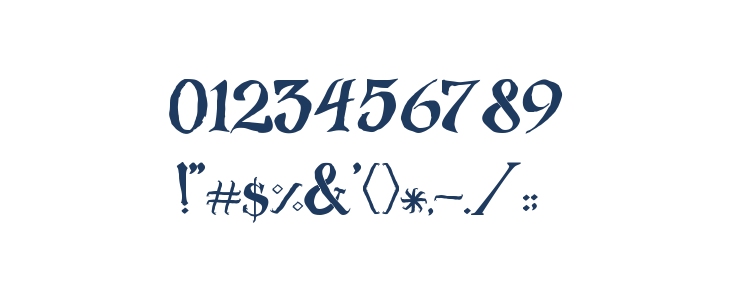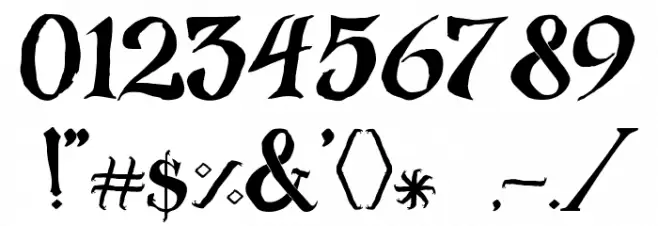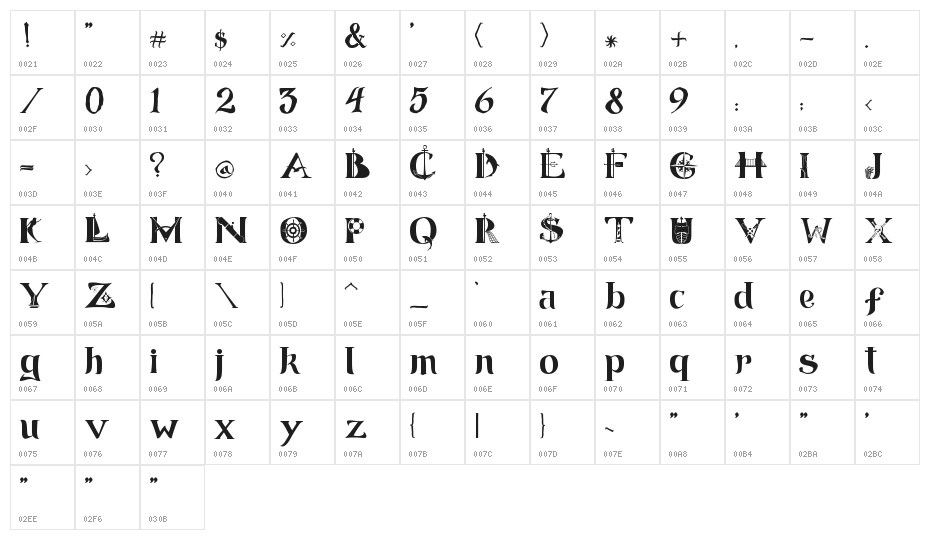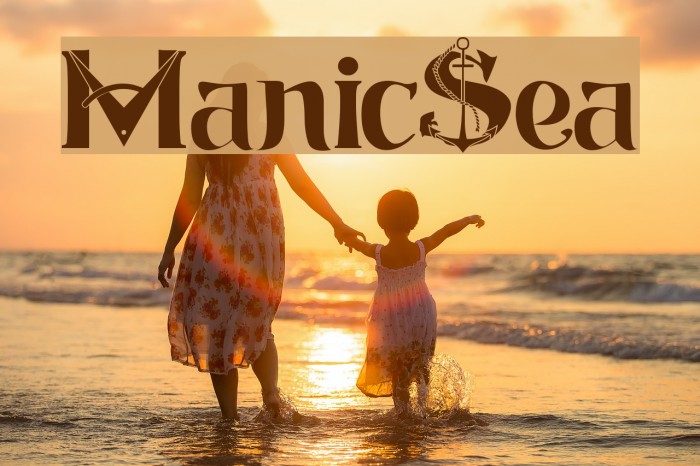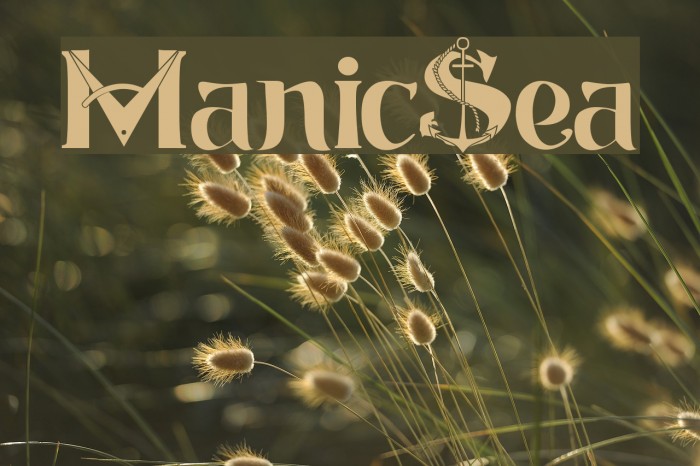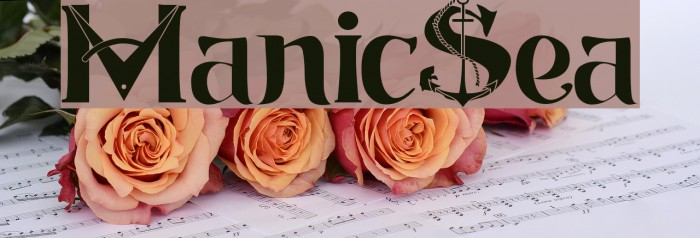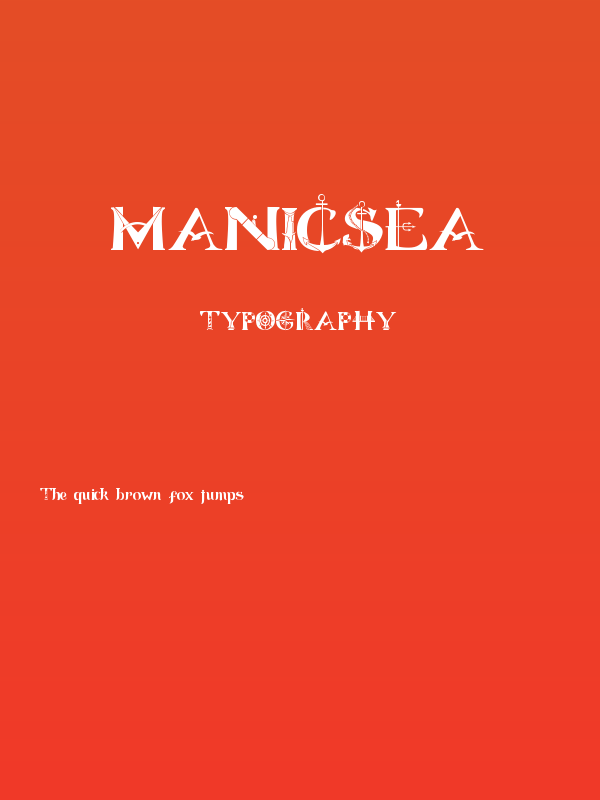
ManicSea Font
ManicSea Description
This font features a nautical and adventurous theme, incorporating elements like anchors, ropes, and ship wheels into the letterforms. The uppercase letters are highly decorative, each with unique maritime motifs, while the lowercase letters maintain a more traditional serif style with subtle embellishments. The numbers and special characters continue the theme, offering a cohesive and playful design. This font is ideal for projects that require a bold and thematic approach, capturing the essence of the sea and exploration.
| Use Case | Headlines, Logos, Themed Designs |
| Proposed Projects | Ideal for pirate-themed events, nautical branding, adventure book covers, and themed merchandise. |